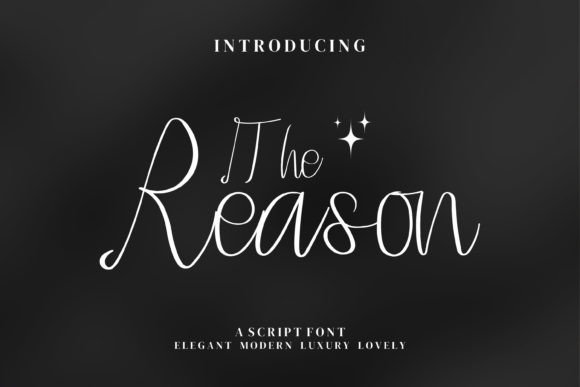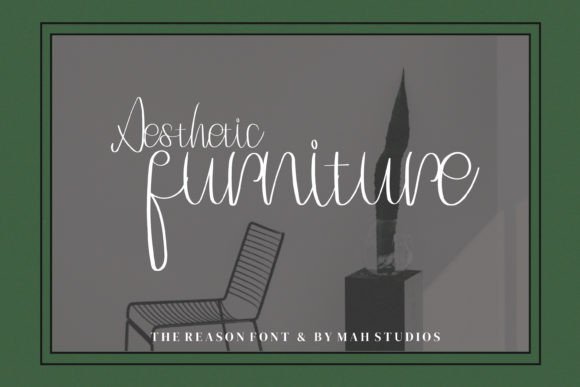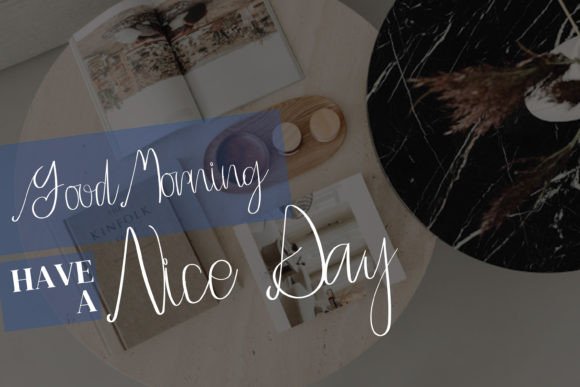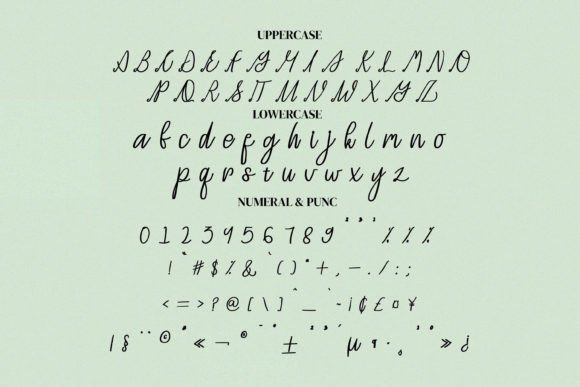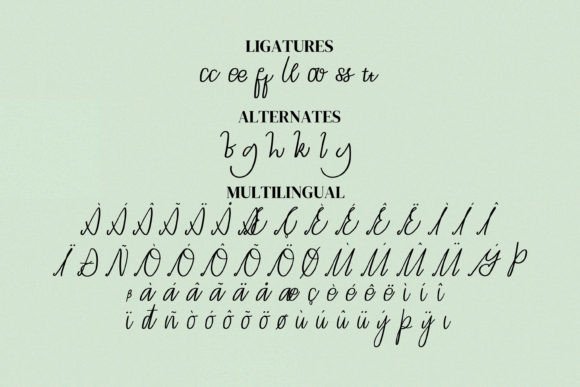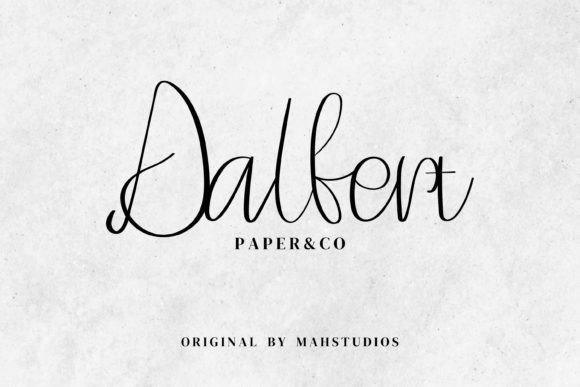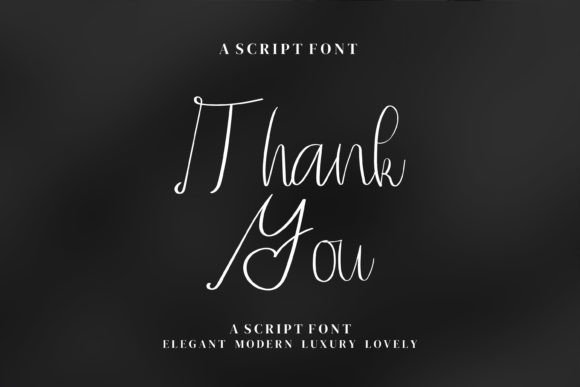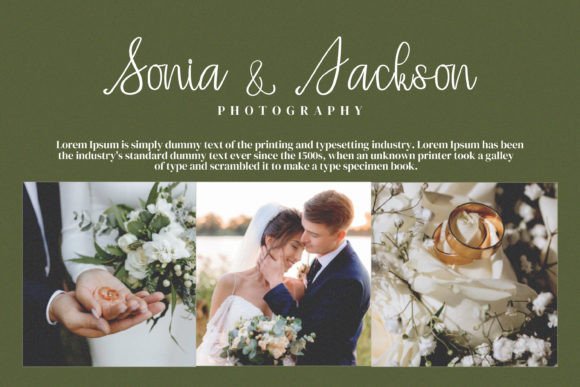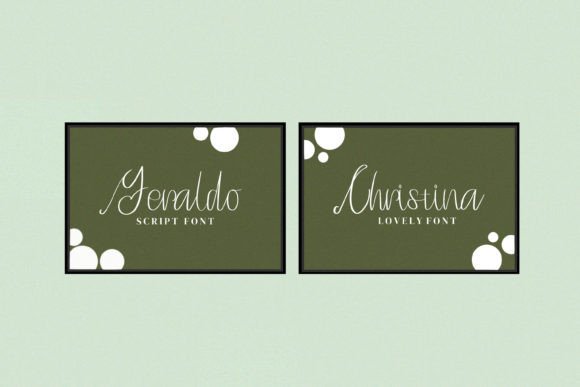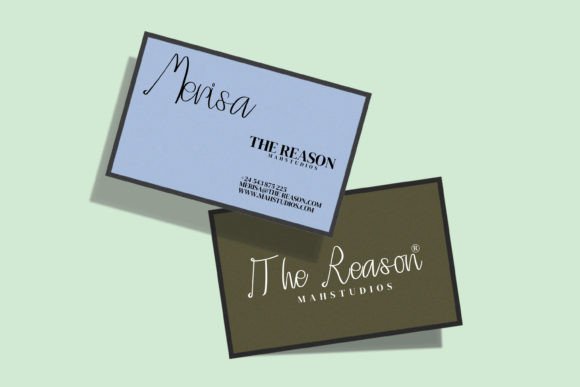
The Reason Font
A Premium and Elegant Script Typeface
The Reason is a sophisticated script font crafted to add elegance and refinement to your creative projects. With its smooth, flowing lines and premium feel, this font brings a timeless charm to any design. Whether you’re creating logos, event materials, or social media graphics, The Reason makes every detail look polished and professional.
Its stylish look blends modern aesthetics with classic script influences, creating a typeface that feels luxurious and versatile.
The Reason is a font you’ll want to use again and again. It’s perfect for branding projects like logos, product labels, and business cards. The elegant script style helps your brand feel premium and memorable, making a lasting impression on customers.
For events, The Reason is ideal for wedding invitations, save-the-date cards, and thank you notes. Its graceful strokes set a romantic, personal tone that makes every occasion feel special.
This font also works beautifully on merchandise such as mugs, tote bags, and t-shirts. The smooth lettering stands out in print, giving your products a high-end, handcrafted feel.
On social media, The Reason keeps your posts looking cohesive and stylish. Whether you’re announcing new products or sharing inspiration, this font ensures your visuals stay professional and appealing.
Even with its decorative flourishes, The Reason remains clear and legible at any size. Balanced spacing and clean connections between letters keep your text neat, whether it’s used for headlines or captions.
For a polished design, pair The Reason with a simple sans-serif font. Use The Reason for titles and key details, and the sans-serif for supporting text. This combination creates a modern, organized layout that feels both sophisticated and approachable.
To showcase The Reason’s luxury feel, use light, neutral backgrounds and soft color palettes. Shades like cream, blush, or warm gray allow the script to stand out without overwhelming your design.
When designing invitations or packaging, consider adding subtle icons or delicate borders that enhance the handwritten look.
On social media, embrace white space to keep your content clear and focused.
Think about the mood you want to create. The Reason is perfect for projects that should feel elegant, romantic, and timeless.
The Reason isn’t just another script font—it’s a creative asset that helps you design with confidence and style. From luxury branding to personal projects, this font adapts easily to any purpose while adding a premium touch to your work.
Adding The Reason to your font collection ensures you always have a versatile, beautiful option ready for any design. Whether you’re working on logos, event invitations, or social media content, this font makes every project feel unique and polished.